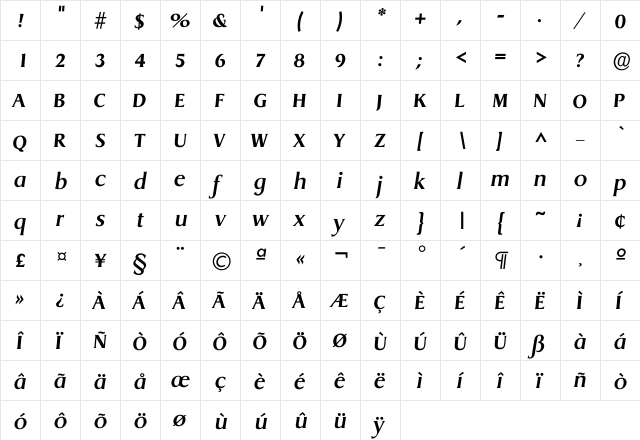
Idragon DemiBold
Design Context for Idragon Typeface
Idragon takes a measured approach to typography — its balanced proportions and neutral character make it a reliable workhorse for both digital and print work. The heavy weight commands attention and anchors typographic hierarchies.
First published in 1991, this typeface is available in OpenType (OTF) format.